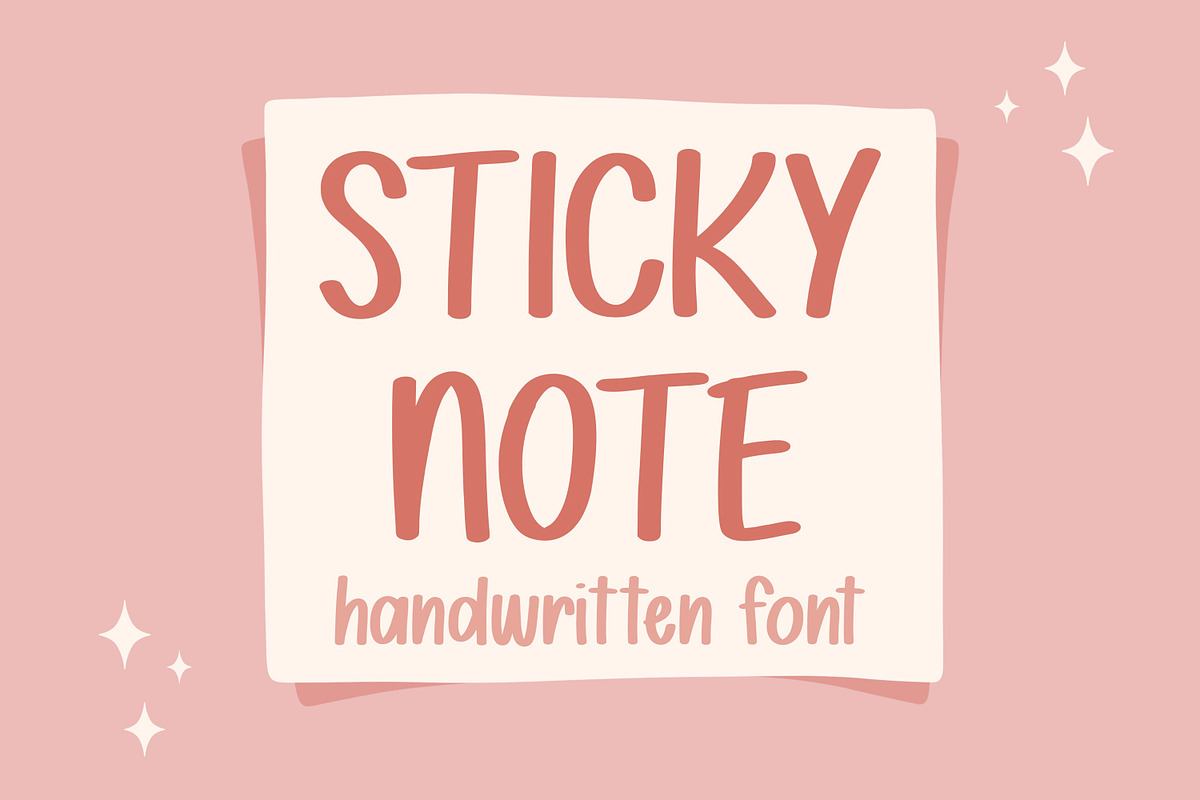
Sticky Note Font Free Download is a fun and casual handwritten typeface that mimics the look of personal notes and sketches. With its playful, irregular strokes and friendly style, this font is perfect for creating informal designs, doodles, personal projects, invitations, and social media graphics.
Whether you're designing a quirky logo, a fun greeting card, or a playful website, Sticky Note Font Free Download adds an organic and approachable touch to your typography. Its unique handwritten feel makes it ideal for designs that need to be both lighthearted and readable.